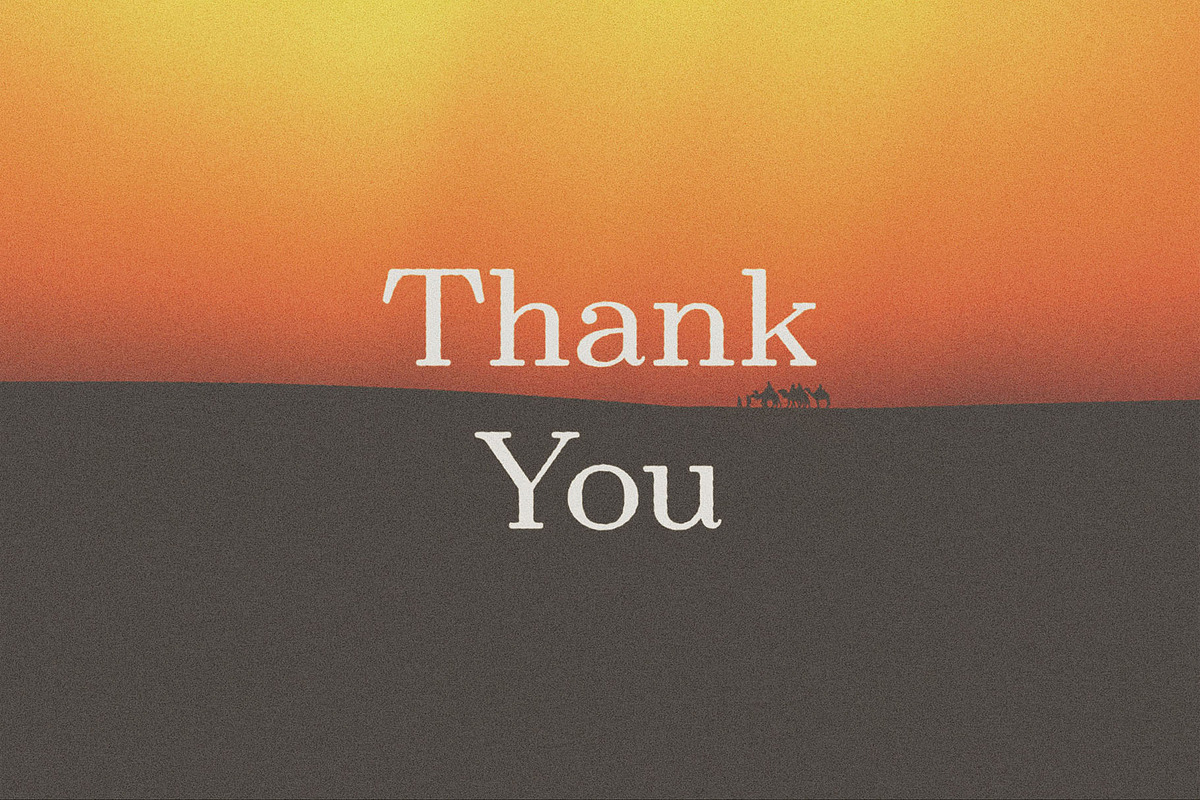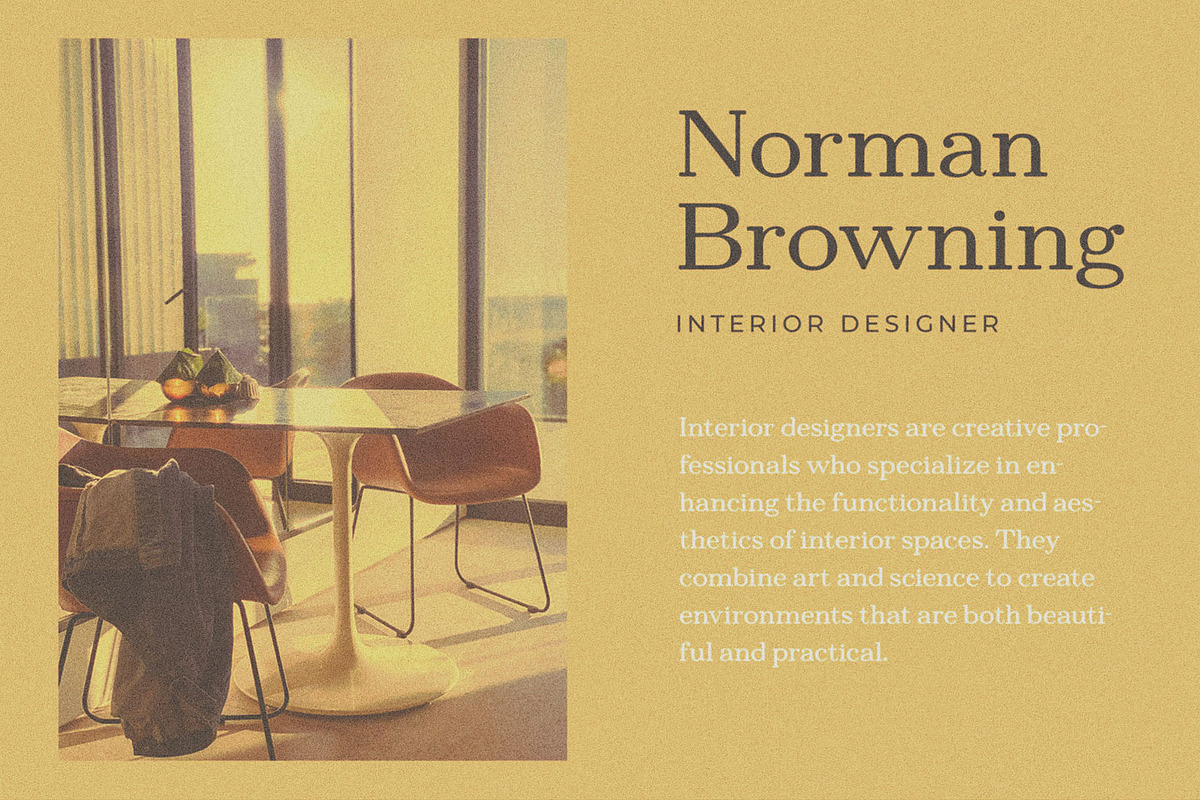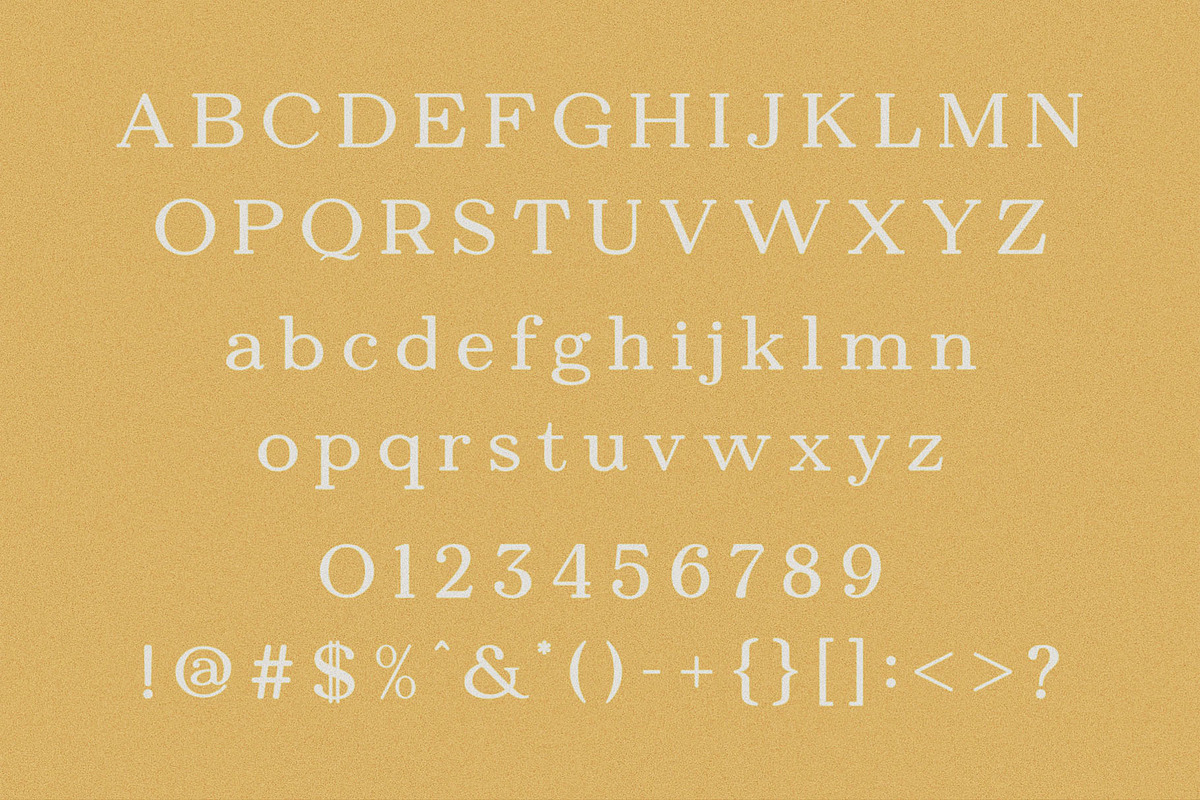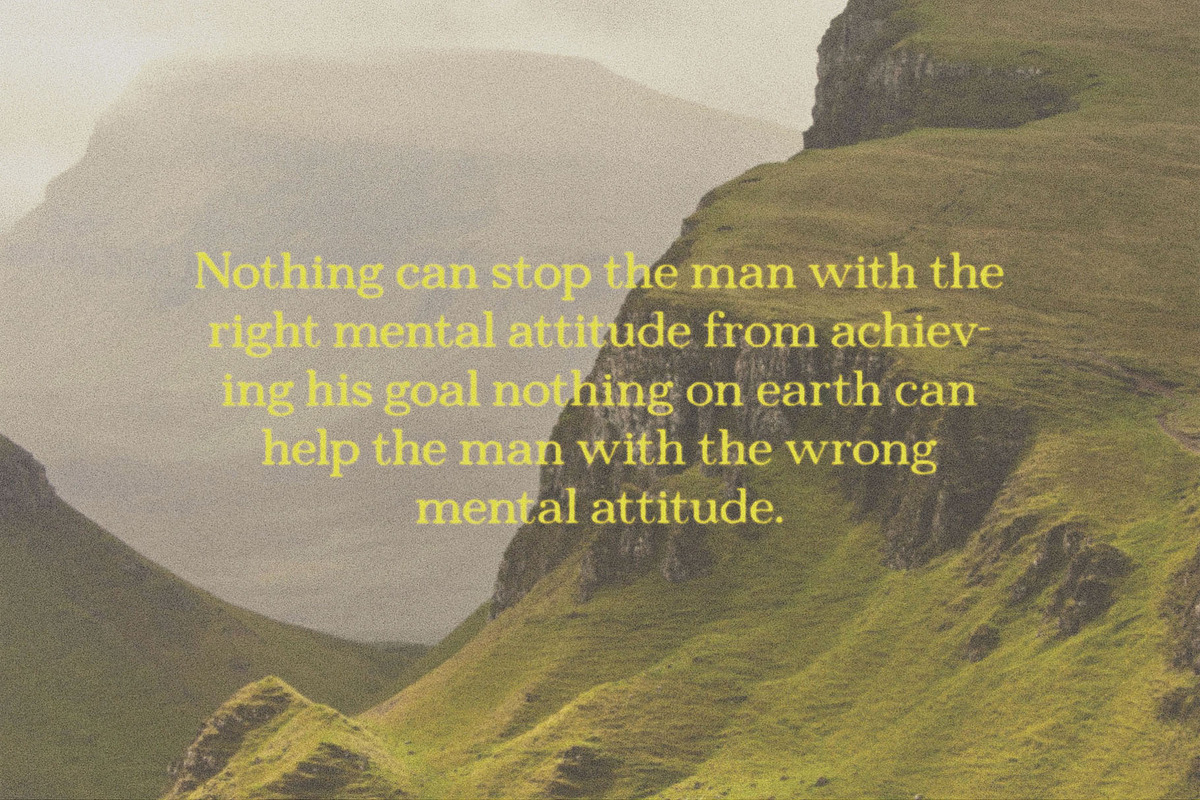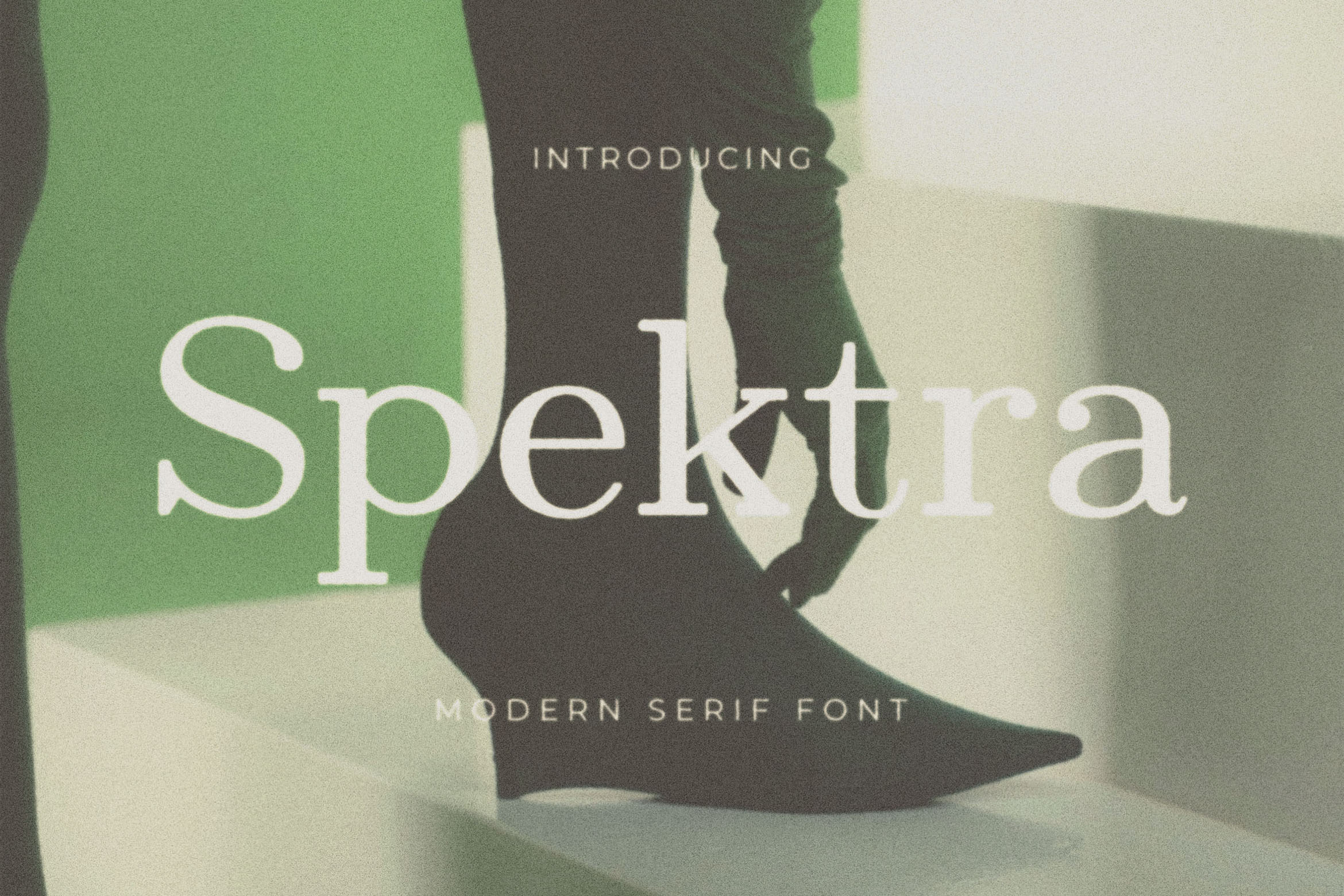
Spektra - Modern Serif Font
Introducing Spektra - Modern Serif Font. Spektra is a modern and simple font, best used as a display for headings, logos, branding, magazines, product packaging and invitations.